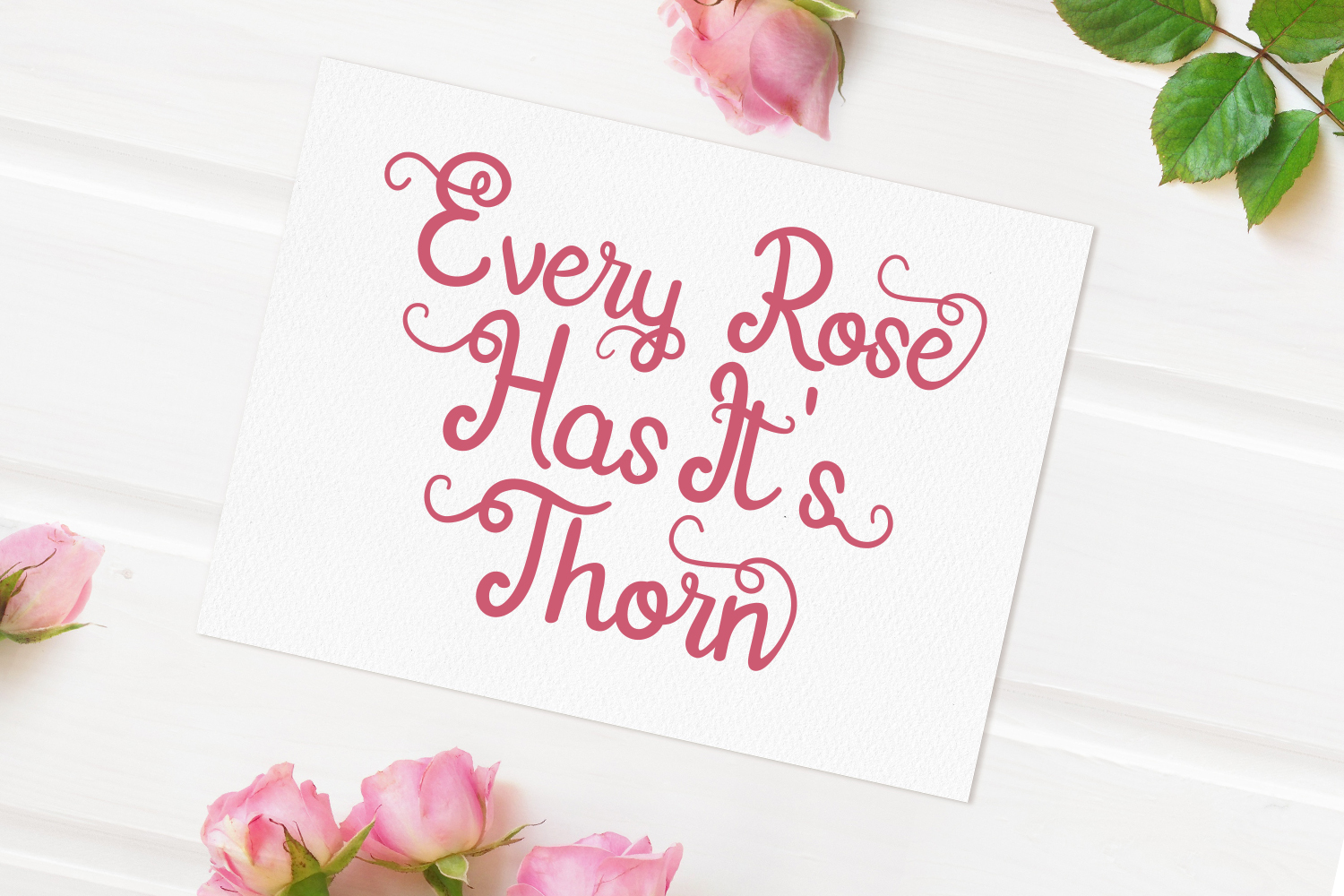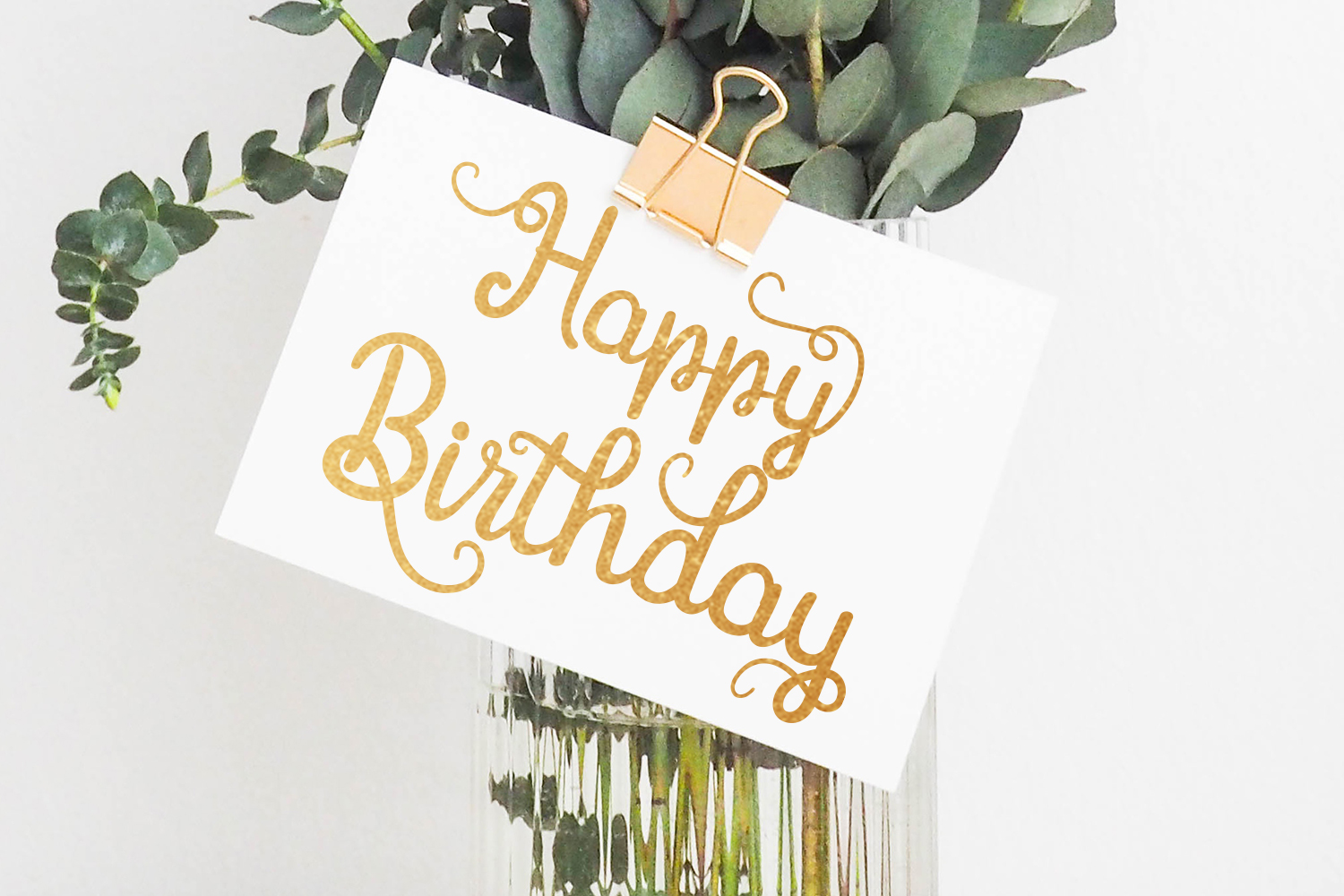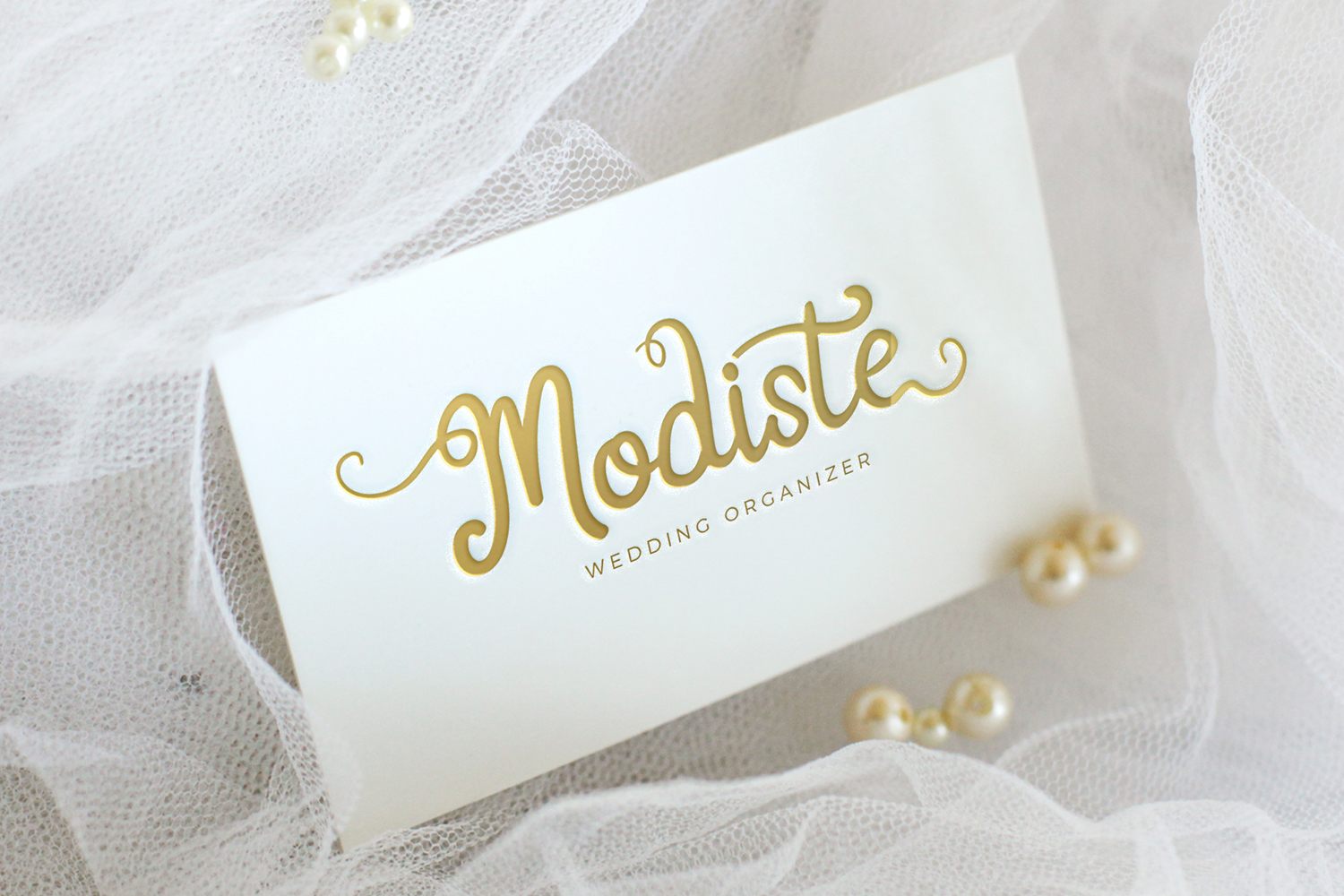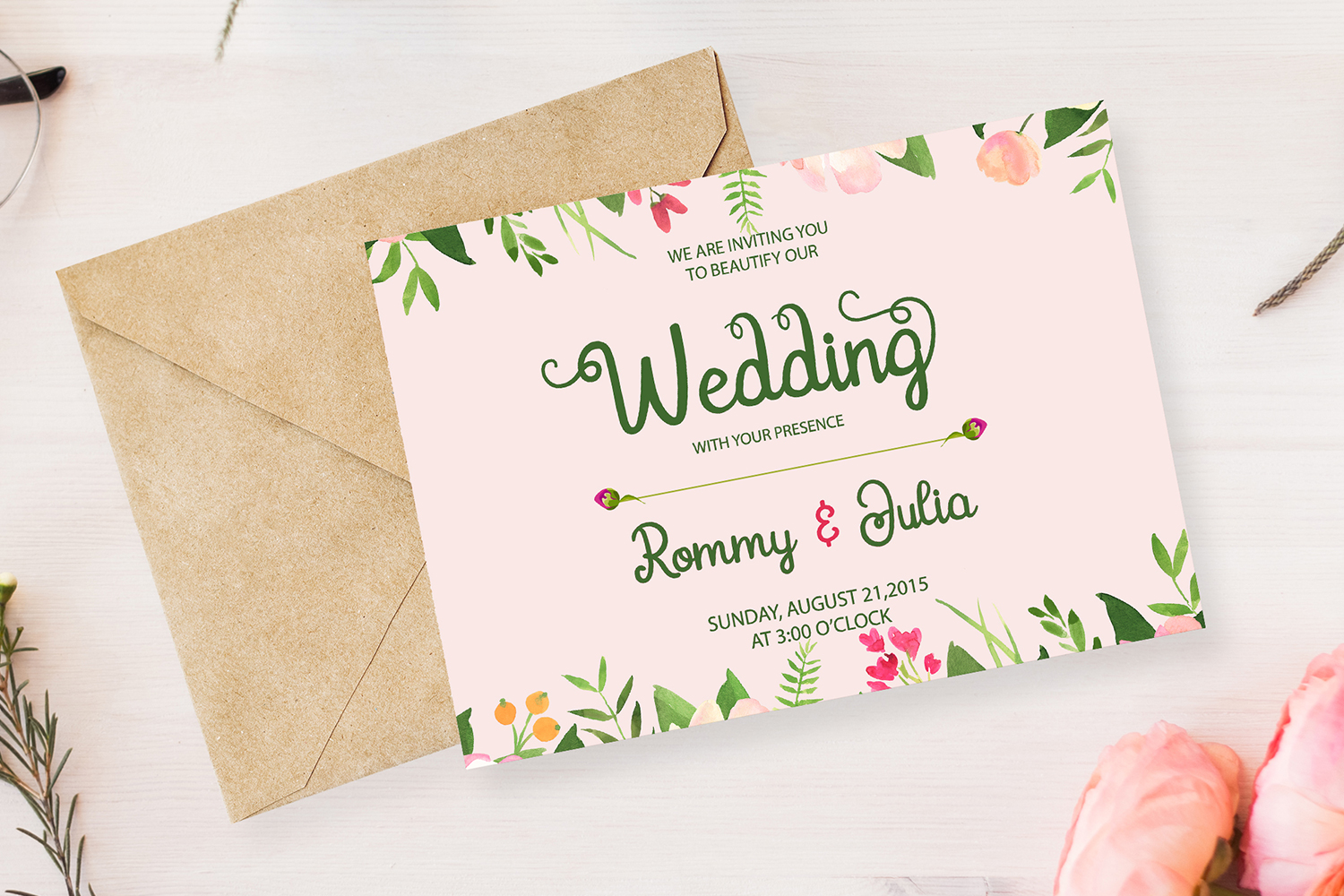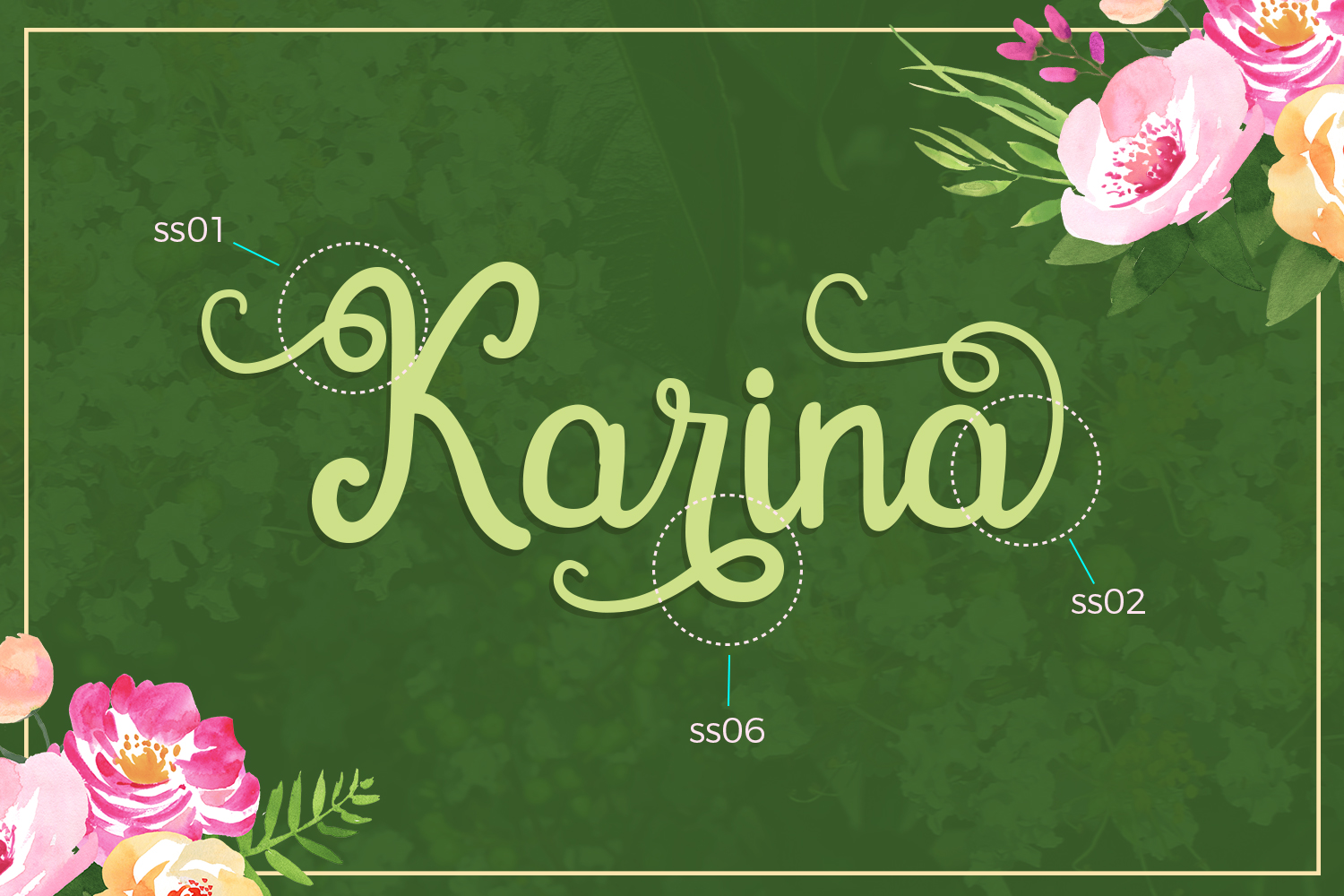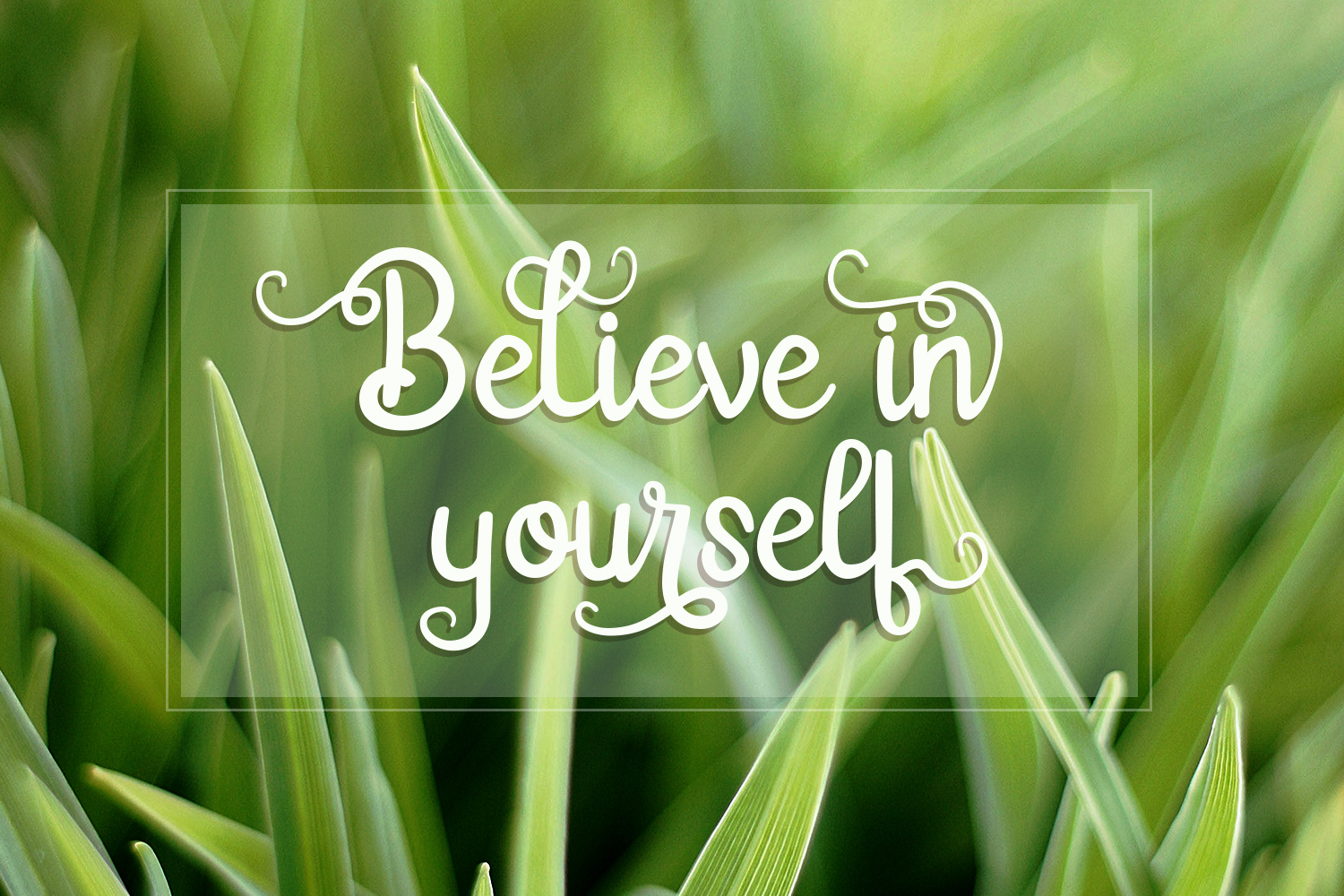
Gardena Font: Elevate Your Designs with a Touch of Natural Elegance
In the world of typography, few fonts capture the essence of natural handwriting as beautifully as the Gardena Script Font. Designed to evoke the effortless charm of handwritten script, Gardena Font brings a refreshing touch to any design project. With its appealing swashes and swirls, this versatile font is perfect for crafters, designers, and anyone looking to add a personal touch to their creations.
The Inspiration Behind Gardena Font
Gardena Script Font draws inspiration from the organic flow of handwriting, making it an ideal choice for designers seeking to infuse their work with a sense of warmth and authenticity. The font’s design is rooted in the idea of creating a typographic style that mirrors the natural, flowing movements of handwriting. This approach not only makes Gardena Font visually appealing but also highly adaptable across various design applications.
Key Features of Gardena Script Font
- Natural Handwriting Style: Gardena Font boasts a script style that closely resembles natural handwriting, complete with subtle variations in line width and fluid letter connections.
- Appealing Swashes and Swirls: One of the standout features of Gardena Font is its inclusion of elegant swashes and swirls. These decorative elements can be used to add flair to headings, titles, and even body text, giving designs a sophisticated yet playful edge.
- Versatility: Whether you’re working on a wedding invitation, a brand logo, a website design, or a crafting project, Gardena Script Font can be seamlessly integrated into a wide range of styles and themes.
- Readability: Despite its decorative nature, Gardena Font maintains a high level of readability, making it suitable for both short phrases and longer passages of text.
Uses of Gardena Script Font
The versatility of Gardena Script Font makes it an excellent choice for various design projects. Here are some popular applications:
- Wedding and Event Stationery: Create stunning wedding invitations, save-the-date cards, and event posters with a personal touch.
- Branding and Logo Design: Use Gardena Font to craft unique and memorable logos that convey a sense of elegance and approachability.
- Website Design: Enhance your website’s aesthetic with Gardena Script Font, particularly for headings, quotes, and testimonials.
- Crafting and DIY Projects: From handmade product labels to craft tutorials, Gardena Font can add a charming, handcrafted feel to your creations.
Tips for Using Gardena Script Font Effectively
To maximize the impact of Gardena Script Font in your designs, consider the following tips:
- Mix and Match: Combine Gardena Font with complementary fonts to create visual interest and hierarchy in your designs.
- Adjust Size and Color: Play with the size and color of Gardena Font to emphasize certain words or phrases, adding depth to your design.
- Utilize Swashes: Don’t be afraid to get creative with the swashes and swirls. They can be used to create beautiful connections between words or as standalone design elements.
Gardena Script Font offers a unique blend of natural elegance and creative flair, making it a valuable addition to any designer’s toolkit. Its handwriting-inspired style, coupled with its decorative swashes and swirls, provides endless opportunities for creating fresh and engaging designs. Whether you’re a professional designer or a crafting enthusiast, Gardena Font is sure to inspire your next project and help you achieve a truly refreshing design.